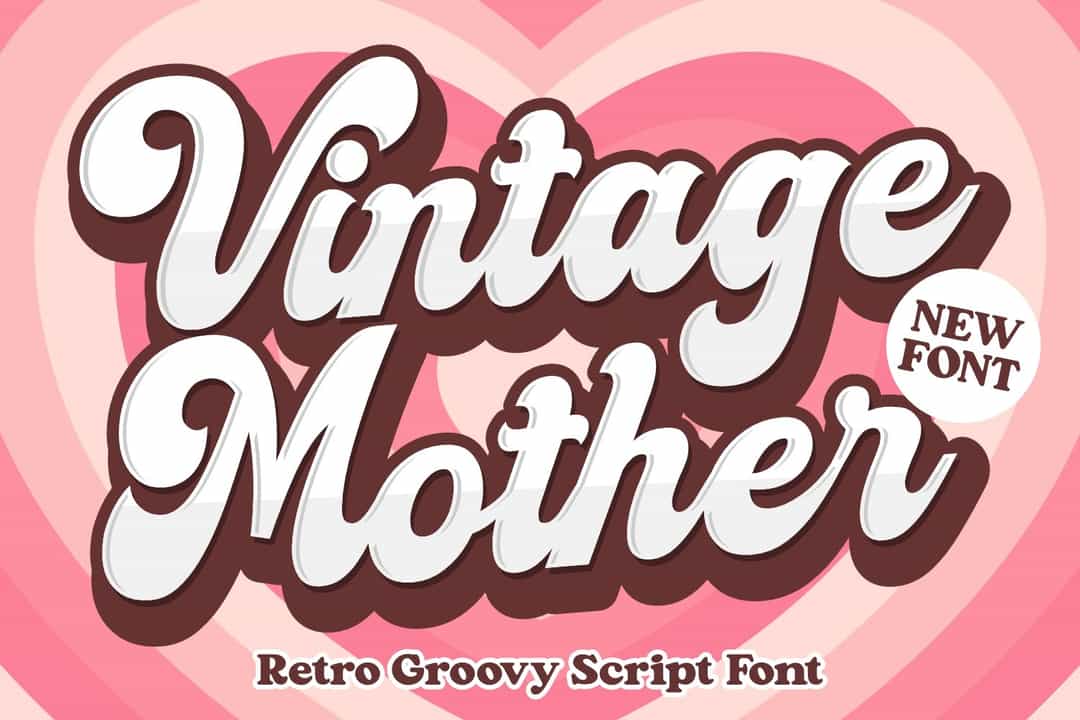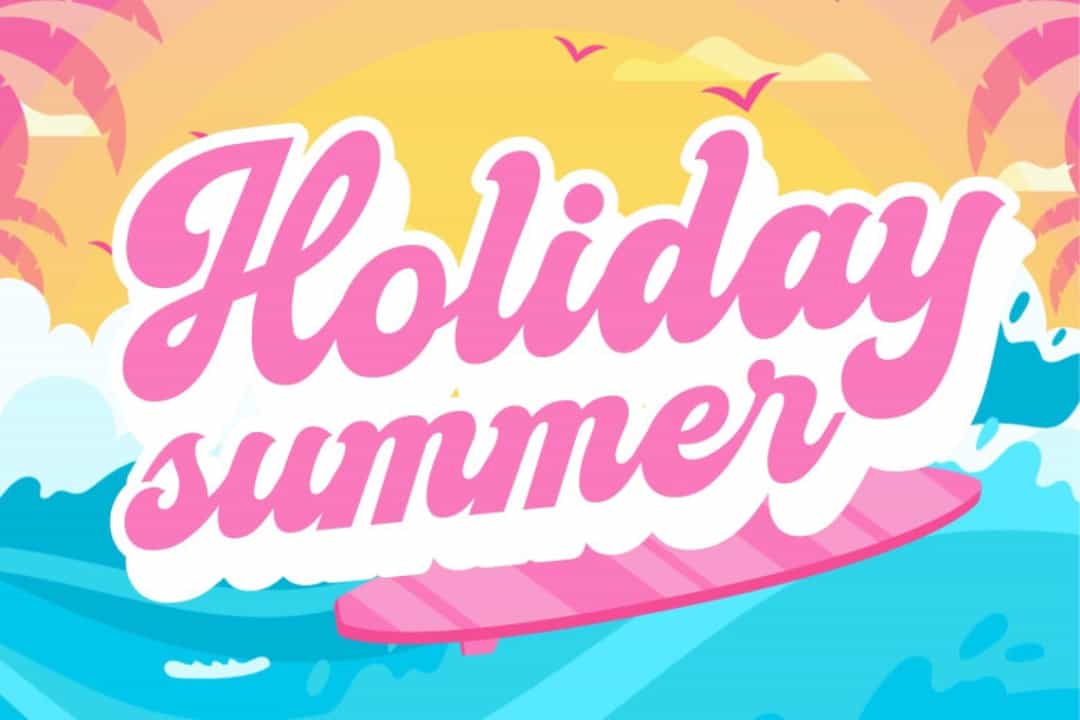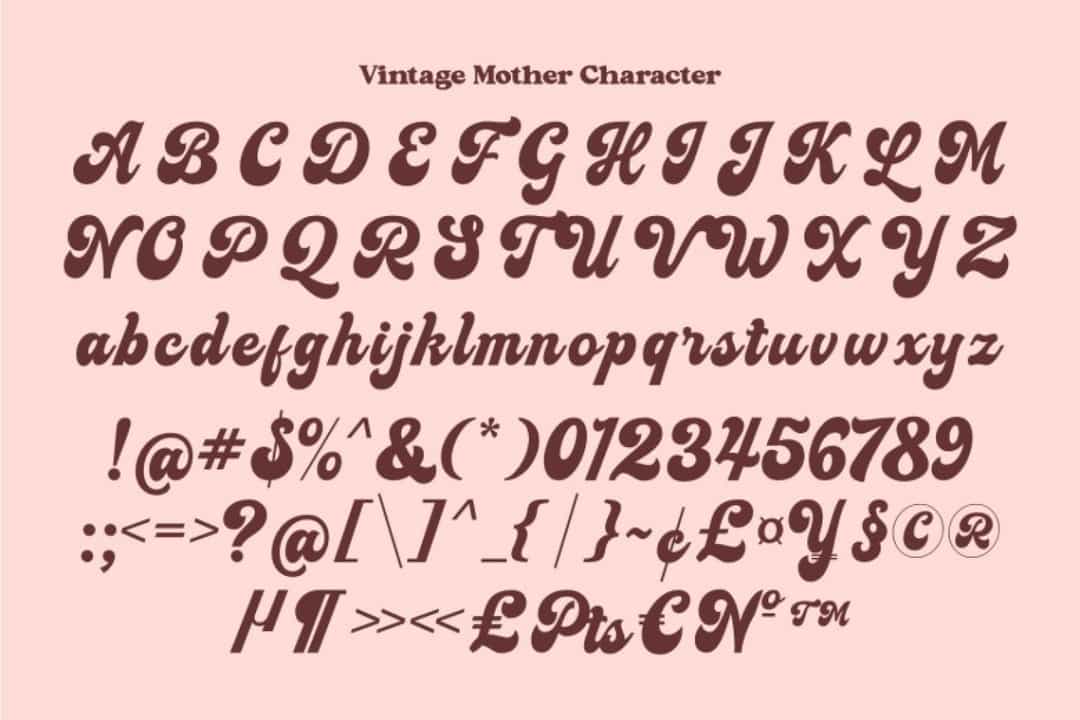
Vintage Mother is both charming and nostalgic, offering an eye-catching vintage display script font. Use Vintage Mother to add retro appeal to any design concept you envision! Carefully created to become one of our most-beloved fonts, Vintage Mother will take all your creative projects to new heights!